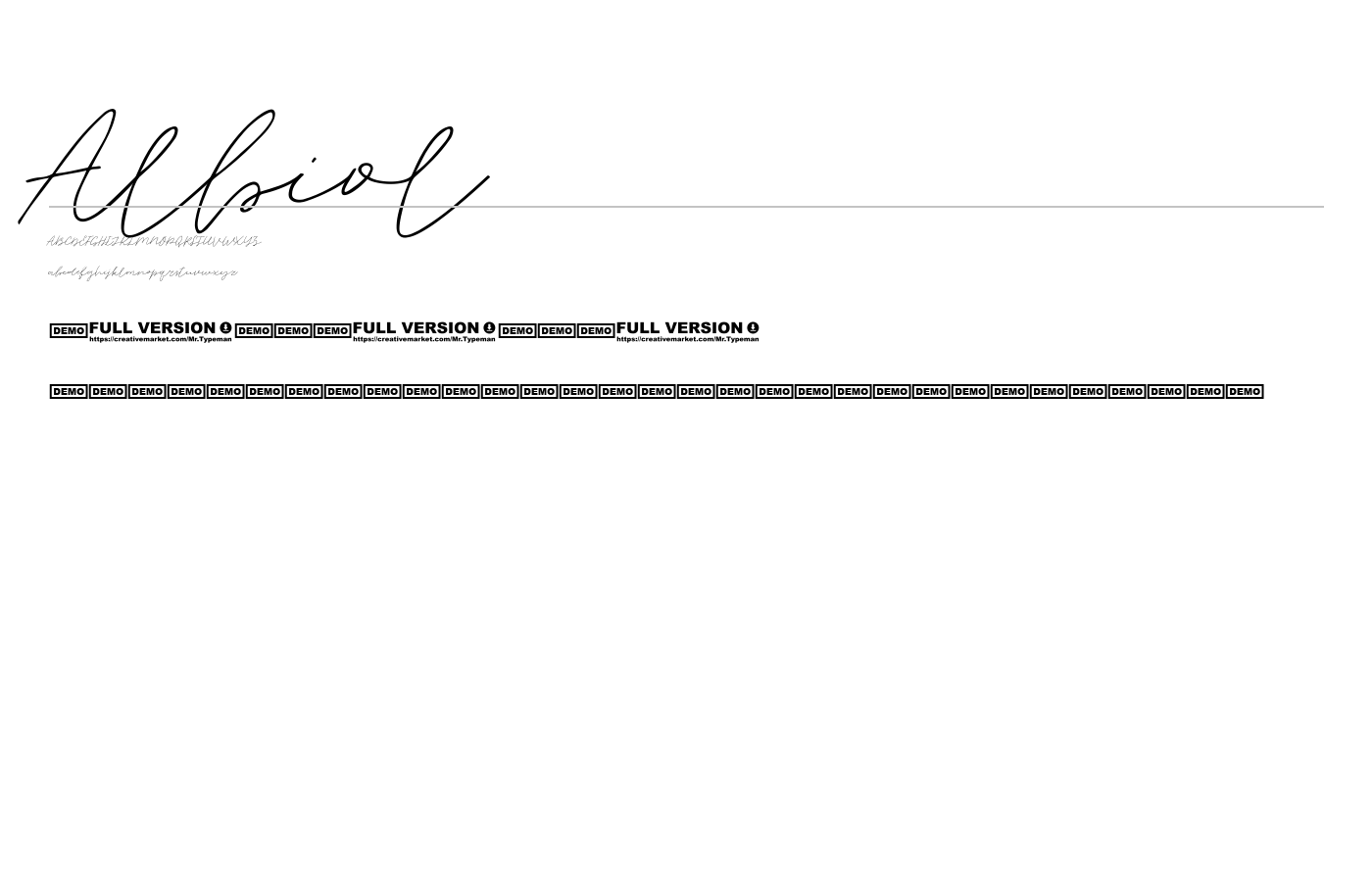
Albiol is an elegant, delicate script font with a handwritten look, featuring thin, flowing lines and a refined, airy feel. Its tall, sweeping letterforms and smooth curves convey sophistication and grace, making it ideal for personal branding, invitations, and luxury designs that seek a stylish, feminine touch. This font works best where a soft, artistic impression is desired, adding charm and a handcrafted quality to any project.
Albiol Font
About Albiol Font
| Font family | Albiol Font |
| Designer | Hleb Zhyhunou |